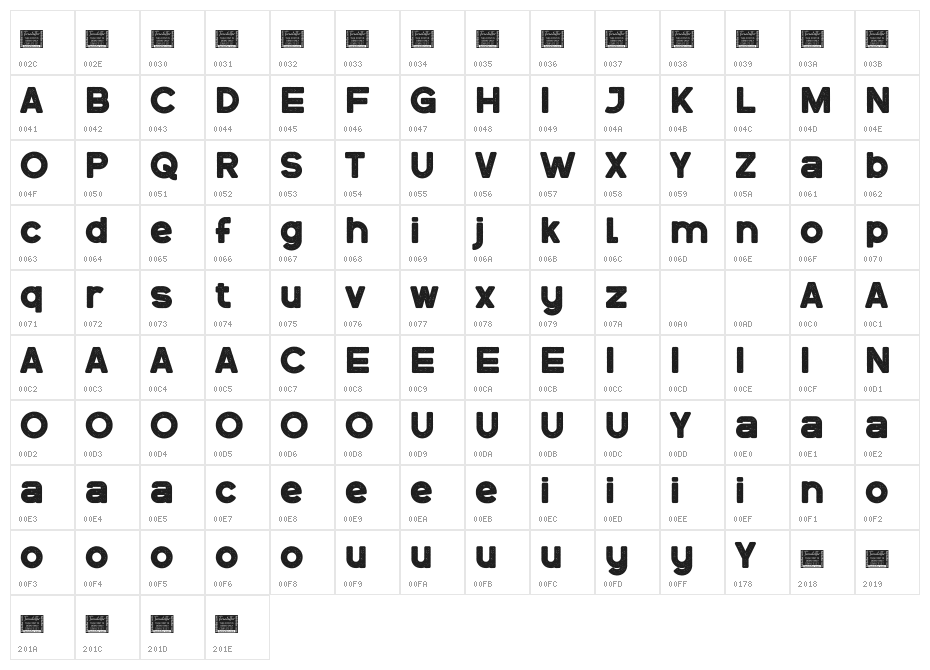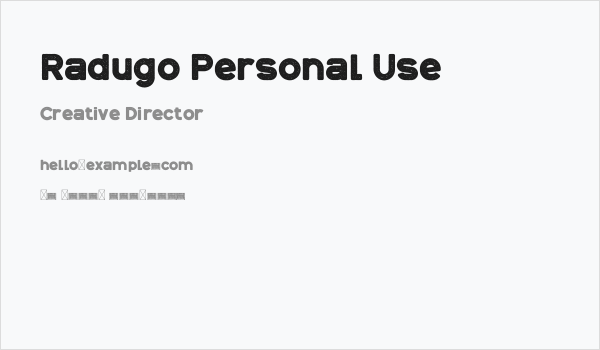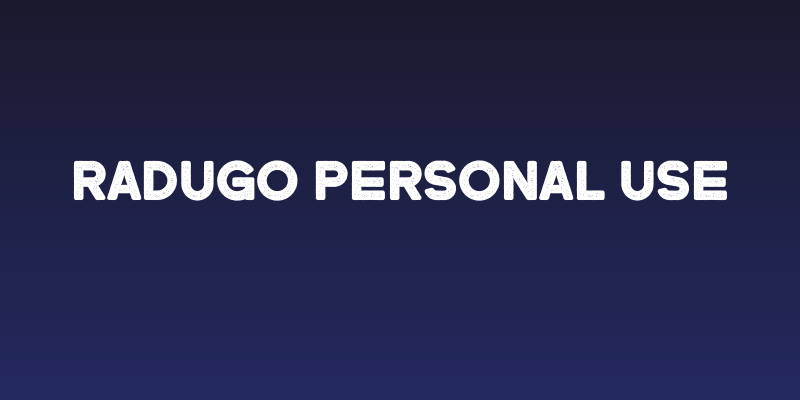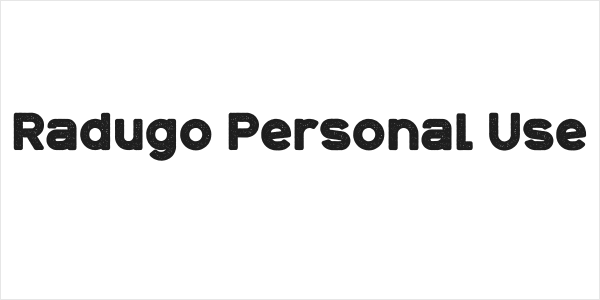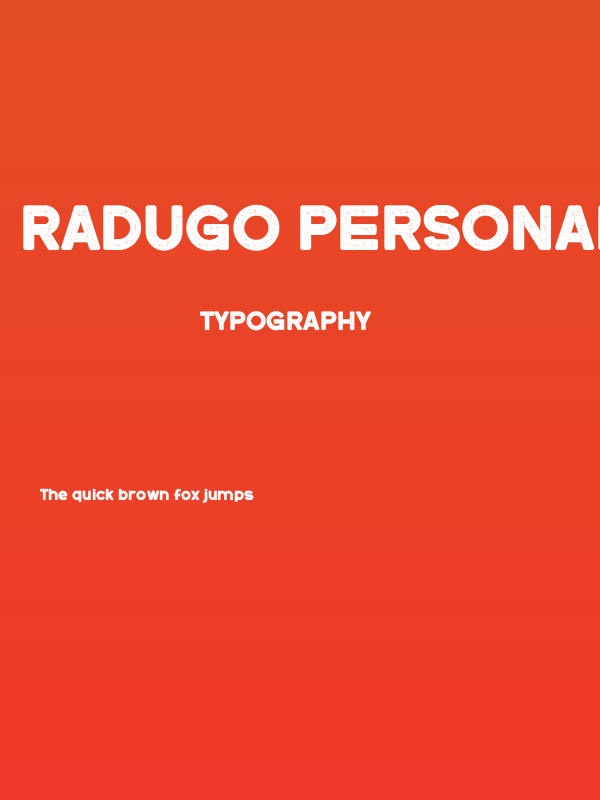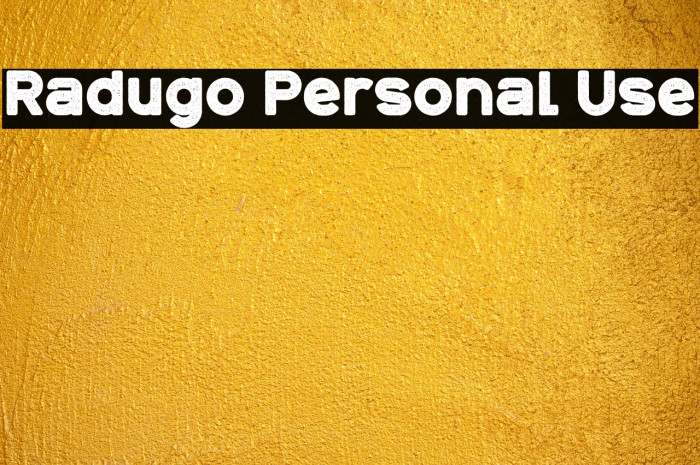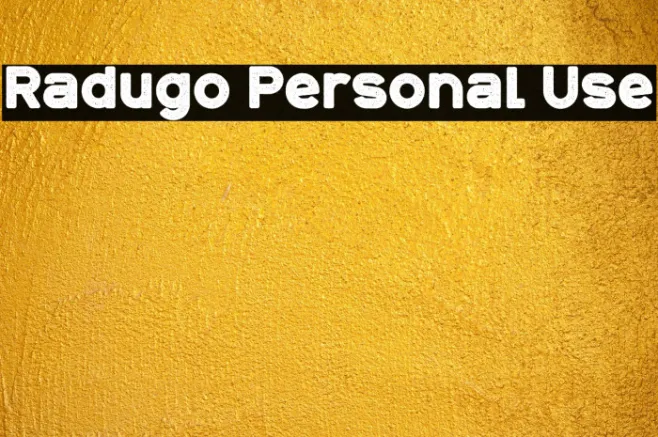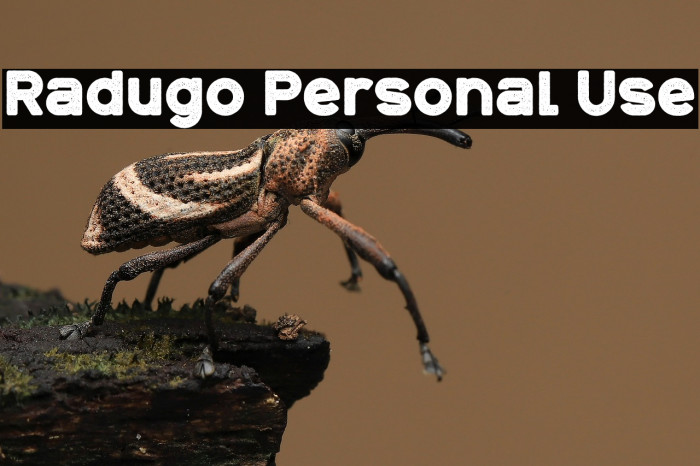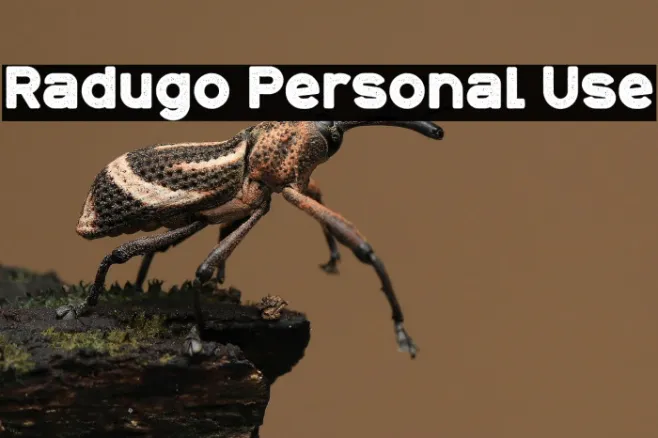
Radugo Personal Use Font
Radugo Personal Use Description
This font features a bold, rounded style with a textured, distressed appearance, giving it a vintage and playful feel. The characters are uniformly bold, with consistent stroke thickness, and the rounded edges add a friendly and approachable vibe. The distressed texture adds a layer of uniqueness, making it stand out for creative projects. The uppercase and lowercase letters maintain a consistent style, ensuring readability while adding a touch of whimsy. The numbers and special characters follow the same design principles, making the font versatile for various uses.